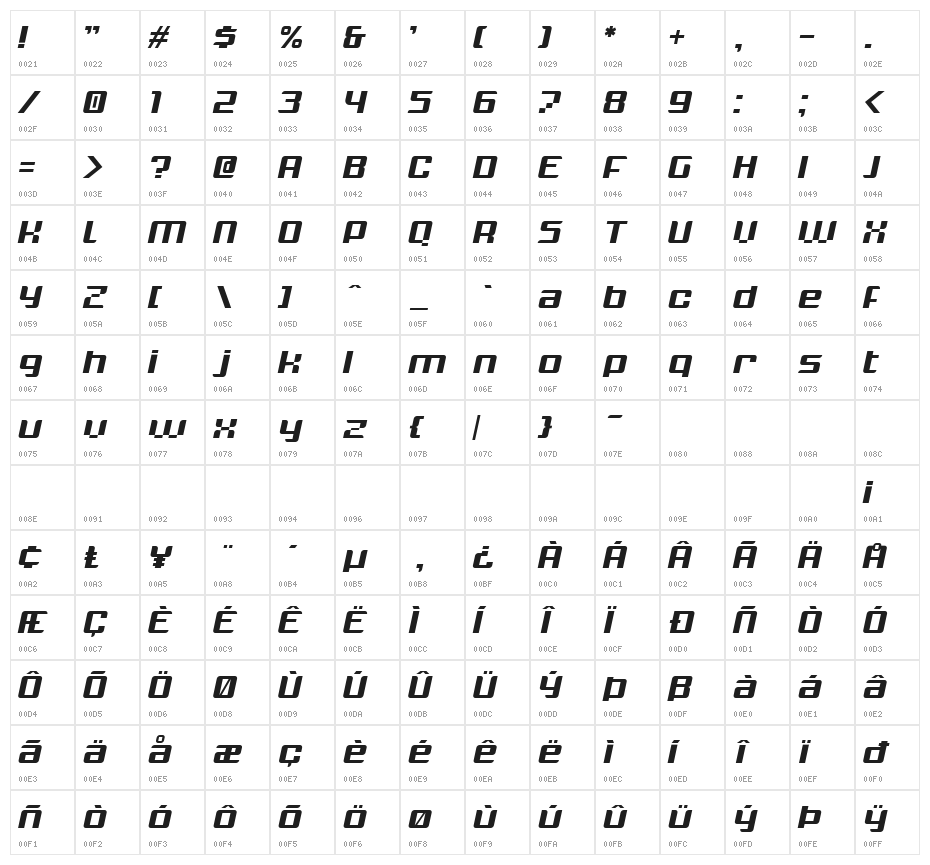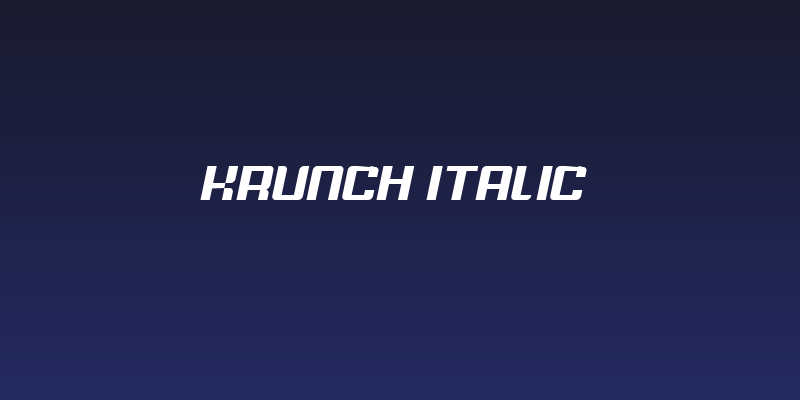
Krunch Italic Font
Krunch Italic Description
This font features a bold and dynamic style with a distinct italic slant, giving it a sense of motion and energy. The characters are designed with sharp angles and clean lines, creating a modern and futuristic appearance. The uppercase and lowercase letters maintain a consistent style, with the lowercase characters slightly more rounded. The numerals are bold and easily readable, matching the overall aesthetic of the alphabet. Special characters are included, each designed to complement the font's angular and sleek design. This font is ideal for projects that require a strong visual impact and a contemporary feel.
Proposed ProjectsPerfect for branding, sports team logos, video game titles, and dynamic advertising materials.